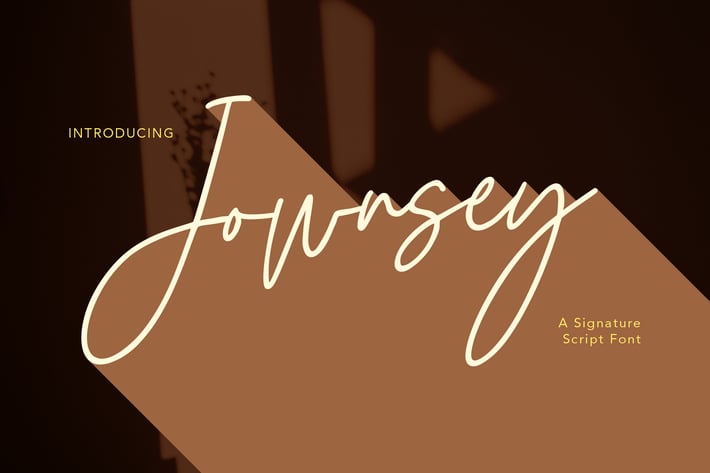
Jownsey Signature Script Font
Jownsey is a casual signature cript font, with a light mono-line stroke, slant and fun character. It has Opentype features ligatures of character, To give you an extra creative work. Jownsey signature script font support multilingual more than 100+ language. This font is good for logo design, Social media, Movie Titles, Books Titles, a short text even a long text letter and good for your secondary text font with sans or serif. Make a stunning work with Jownsey font.